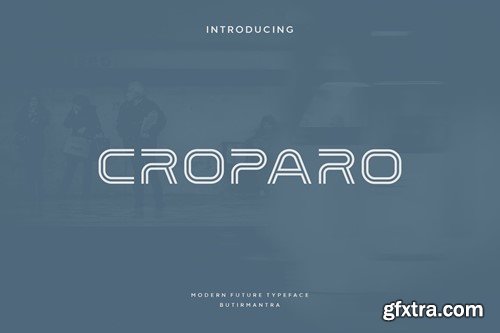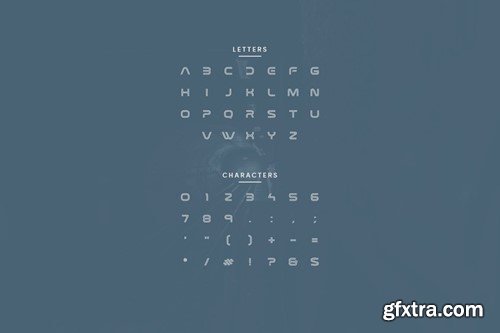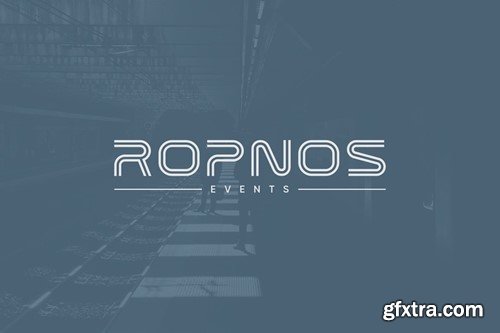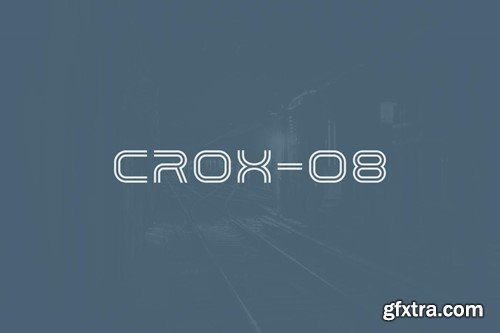
Cropparo - 现代显示字体 DHM7WVJ
Croparo - Modern Display Font
Croparo is a unique all-caps based font that will make your design look futuristic and modern, using a simple design to make it look clean and elegant. You can use this font for any purpose, especially for creating future designs. This font would be great for logo designs, posters, magazines, headlines and many other designs, it’s a very sophisticated font that will make your designs stand out! File Included : Thanks for subscribe and good luck with your project!